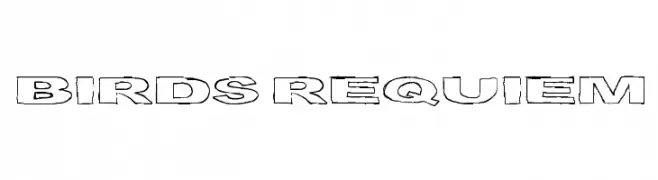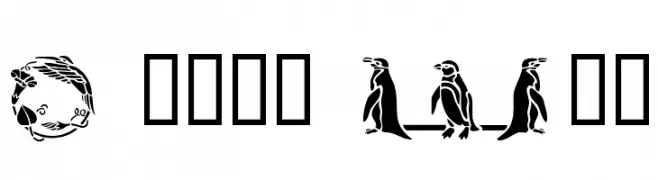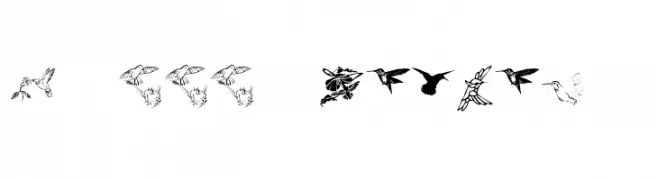
A playful, hand-drawn font with tall, narrow characters and a whimsical style.
A bold, hand-drawn font with a playful and casual style.
A playful, hand-drawn font with tall, narrow characters and a whimsical style.
A vintage-modern font with tall, narrow, hand-drawn letterforms.
A bold, flowing script font with elegant, cursive letterforms.
A playful and elegant handwritten font with a modern touch.
An ornate, bird-themed decorative font with intricate designs.
A decorative, modern blackletter-inspired font with elegant flourishes and high contrast.
A decorative font with uppercase letters and numbers in a bird's nest style.
A bold, playful font with jagged edges and a dynamic, hand-drawn style.
A playful, hand-drawn font with bold outlines and a whimsical style.
A playful, bold handwritten font with a dynamic and lively style.
A playful, informal handwritten font with loose, flowing letterforms.
A bold, brush-stroke font with a dynamic and expressive style.
A playful, textured script font with a handcrafted feel.
A bold, decorative script font with elegant curves and loops.
A playful, hand-drawn script font with connected letters and a dynamic style.
Expressive, hand-drawn illustrative font with cartoon faces and abstract elements.
A playful decorative font featuring cartoonish birds and speech bubbles.
Bird-themed decorative font with each character depicted as a unique bird illustration.
A decorative set of parrot illustrations replacing traditional font characters.
A whimsical decorative font with birds carrying letters, perfect for playful designs.
A decorative font with integrated hummingbird illustrations, offering a playful and elegant style.
An eclectic and experimental font with varied, unbalanced letterforms.
Decorative animal silhouette icons in solid black.